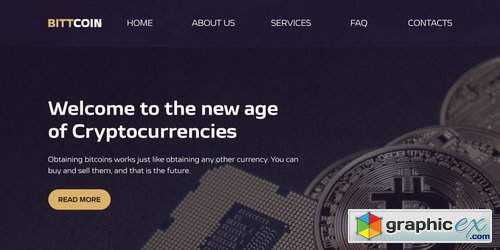
Kaisar Font Family
Kaisar is a geometric sans serif typeface that draws inspiration from Eurostile or similar typefaces, with less boxy feels. It comes with 9 weights and matching italics and contains 400+ glyphs that support broad latin language.